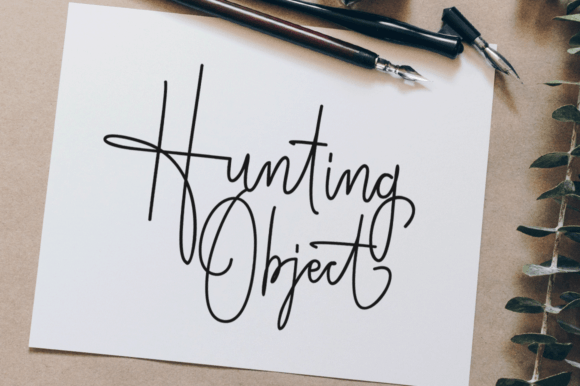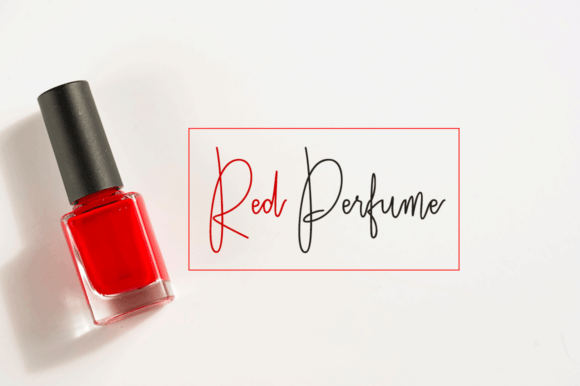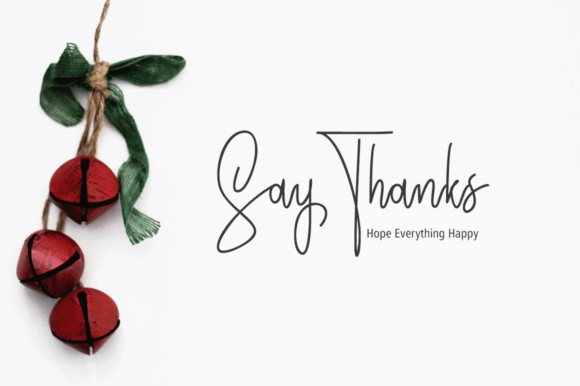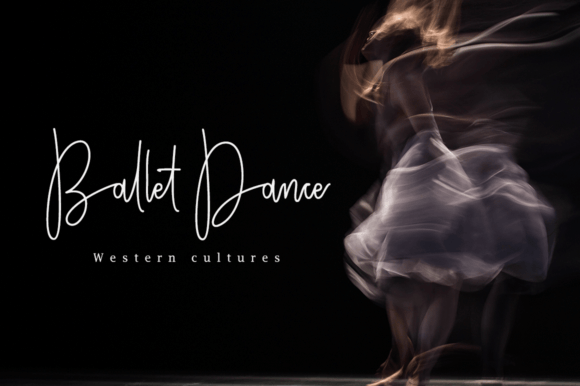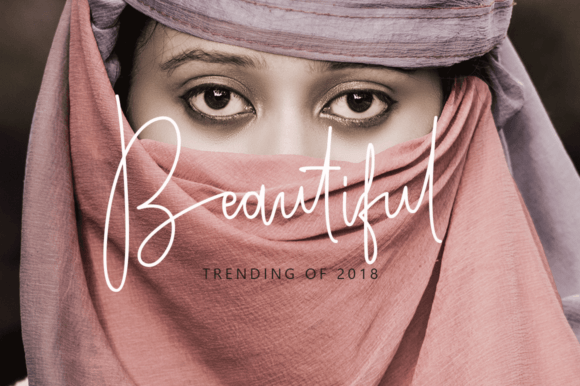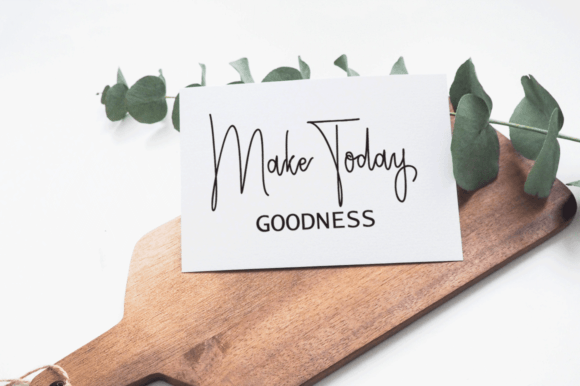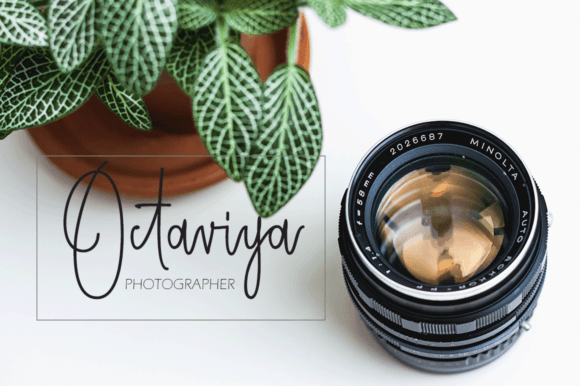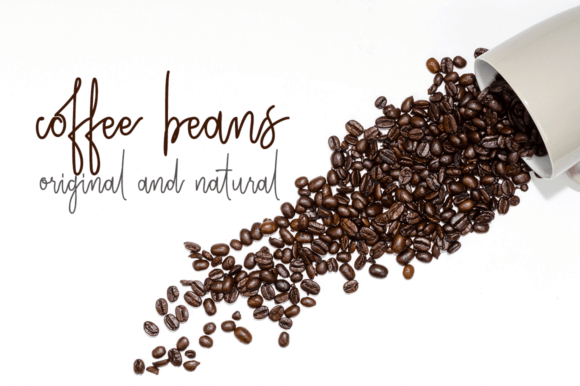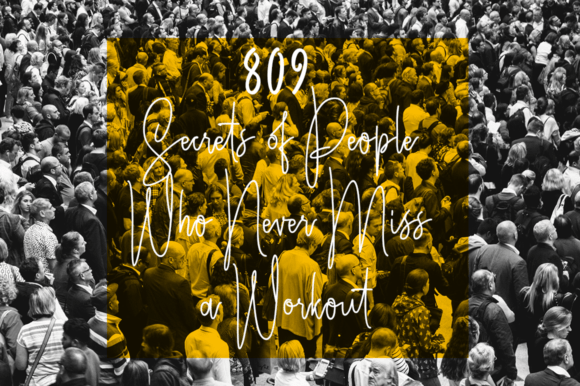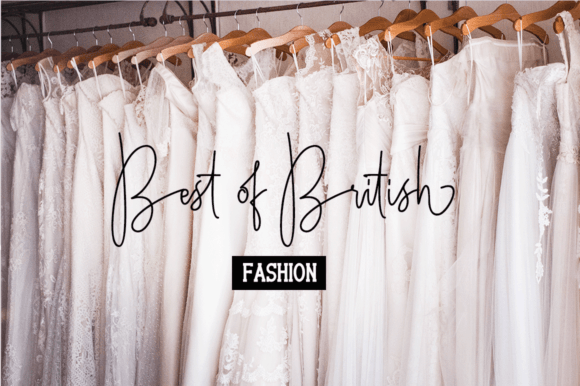
Hunting Object Font
**Hunting Object: Monoline Handwritten Elegance for Diverse Design Applications**
Hunting Object is a meticulously crafted handwritten font that embraces the monoline style, combining the grace of consistency with the warmth of natural handwriting. Here’s an exploration of the font’s features and its potential applications in various design contexts:
1. **Monoline Sophistication:** The monoline structure of Hunting Object imparts a sense of sophistication and modernity to its characters. The consistent thickness of lines enhances the font’s overall elegance.
2. **Handwritten Appeal:** Despite its monoline structure, Hunting Object retains the genuine charm of handwritten elements. This unique fusion creates a distinctive visual language that balances formality and personal touch.
3. **Invitations:** Design elegant and stylish invitations for a range of events, from weddings to upscale parties. Hunting Object’s monoline elegance adds a touch of refinement, making it suitable for sophisticated occasions.
4. **Signatures:** Craft digital or printed signatures that strike a harmonious balance between professionalism and style. The monoline structure ensures a neat and polished appearance, ideal for various applications.
5. **Blogs and Social Media:** Infuse a touch of elegance into blog post titles, social media graphics, and other digital content. Hunting Object’s monoline handwritten style can enhance the visual appeal of your online presence.
6. **Business Cards:** Use Hunting Object for names, titles, or brand names on business cards. Its monoline elegance contributes to a stylish and memorable business card design.
7. **Product Brands:** Elevate your product branding with Hunting Object by incorporating it into logos, labels, and promotional materials. The font’s sophisticated monoline style adds a sense of professionalism to your brand identity.
8. **Versatile Design:** Hunting Object’s versatility allows it to adapt to various design contexts, making it suitable for posters, flyers, and promotional materials where a blend of elegance and modernity is desired.
9. **Digital and Print Compatibility:** Whether used in digital or print media, Hunting Object maintains clarity and readability. Its consistent lines ensure a cohesive and reliable appearance across different mediums.
10. **Minimalistic Aesthetic:** The minimalistic appeal of Hunting Object makes it suitable for designs that require a clean and modern aesthetic. Its simplicity enhances readability while maintaining a stylish look.
11. **Stationery:** Design chic and stylish stationery items, including letterheads and business correspondence, using Hunting Object. The font’s monoline elegance can elevate the overall design of your stationery.
12. **Event Branding:** Use Hunting Object for event branding, adding a touch of sophistication to promotional materials for corporate events or high-profile gatherings.
13. **Digital Signature Fonts:** Create custom digital signature fonts using Hunting Object for a consistent and professional appearance in electronic documents.
Hunting Object offers a harmonious fusion of monoline sophistication and handwritten allure. Whether you’re designing for special events, business materials, or digital platforms, this font provides a versatile and refined option.